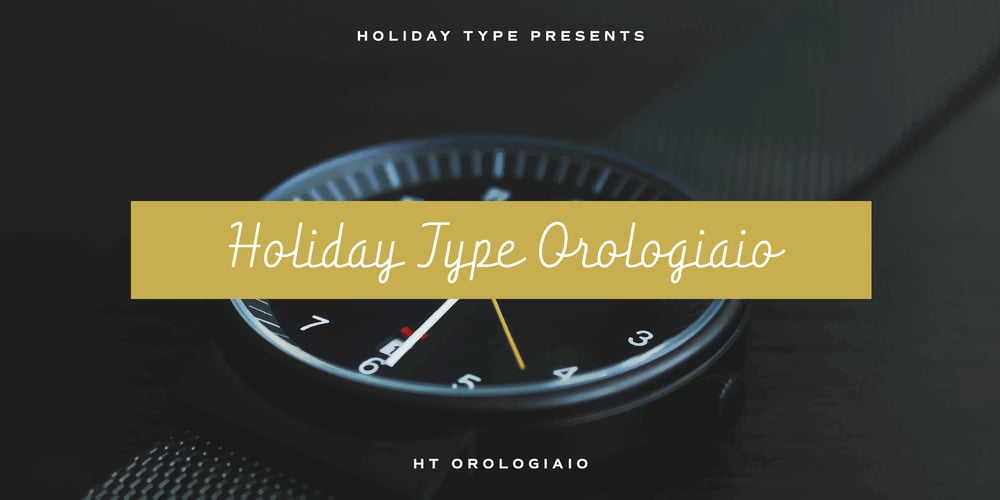
HT Orologiaio Font Family was designed by Ryoichi Tsunekawa and published by Dharma Type. HT Orologiaio contains 1 styles and family package options. HT Orologiaio is made by sharp and thin lines with a retro mood. Holiday Type Project offers retro hand drawing scripts. Inspired by retro script on shopfront lettering, wall paint advertisements in Italy around 1950s. Check out the script fonts from Holiday Type!